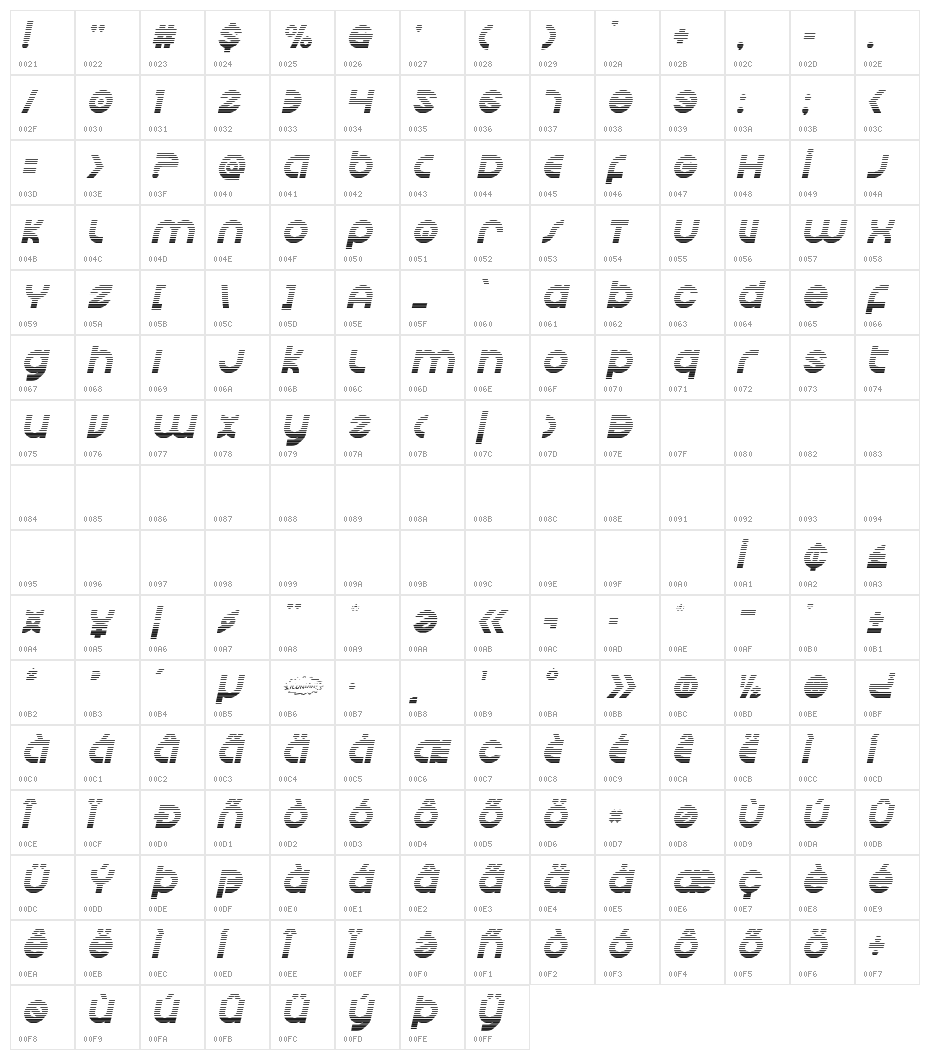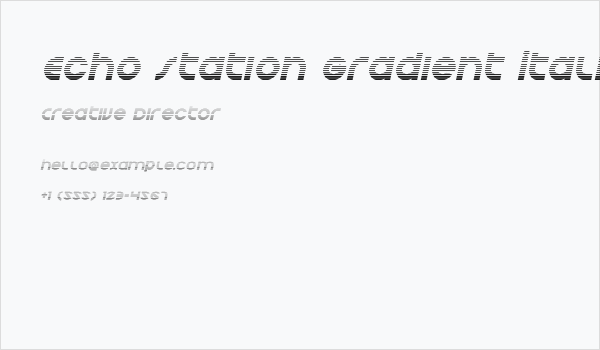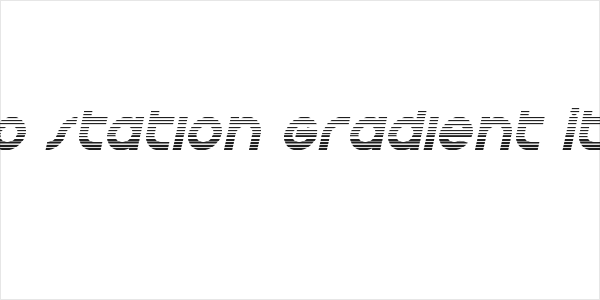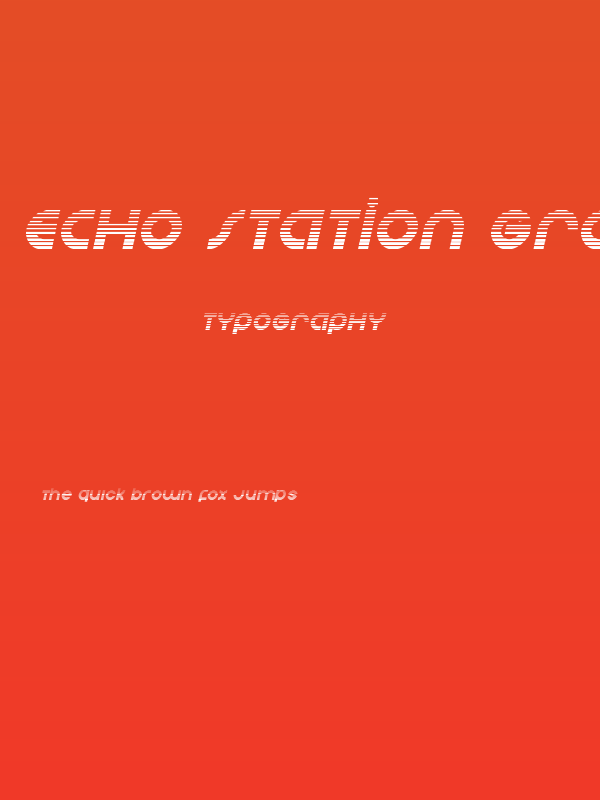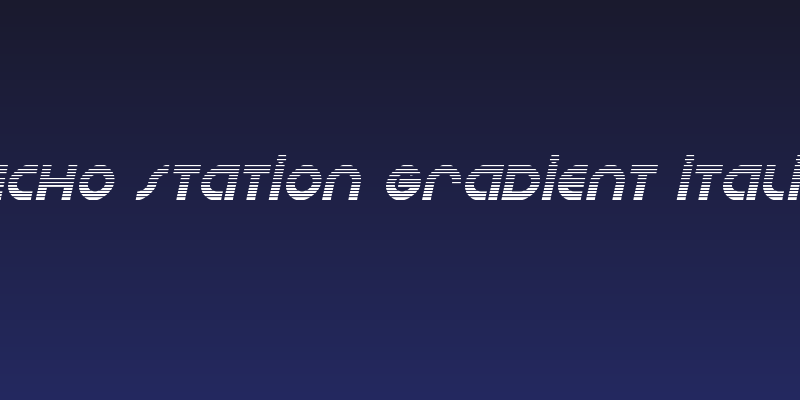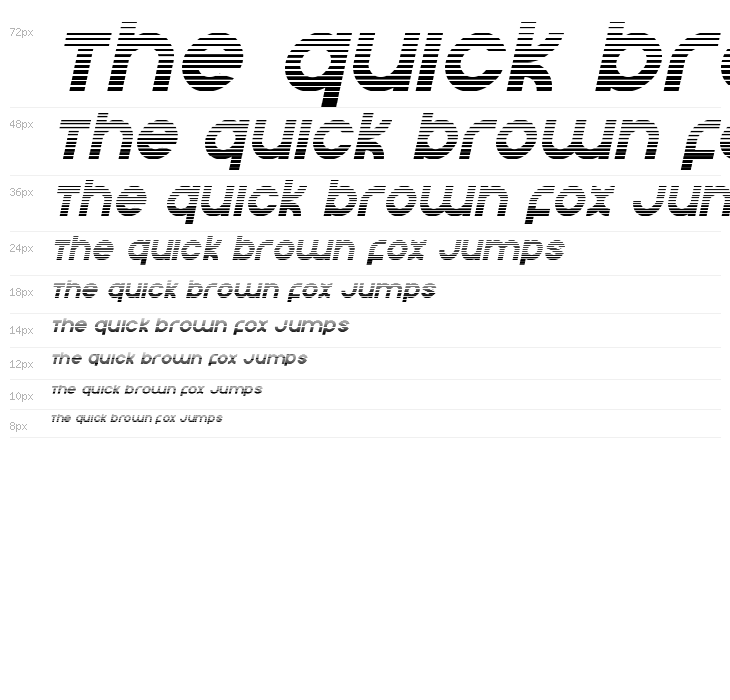
Echo Station Gradient Italic Font
Echo Station Gradient Italic Description
This font features a unique gradient effect with horizontal lines creating a sense of motion and depth. The italicized style adds a dynamic and futuristic feel, making it stand out. Each character is designed with precision, ensuring readability despite the intricate line pattern. The font's modern aesthetic is suitable for projects that require a bold and innovative look, such as tech-related branding or contemporary art designs.
| Use Case | Logos, Headlines |
| Proposed Projects | Ideal for tech branding, futuristic designs, and modern art projects. |